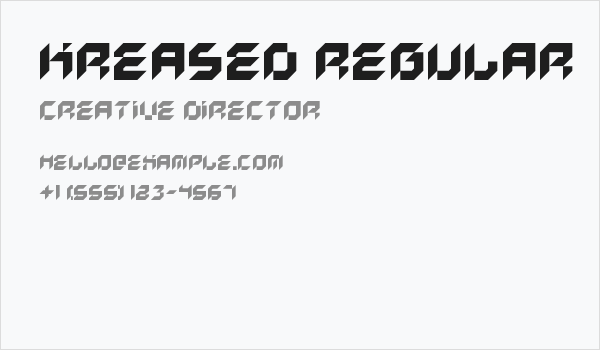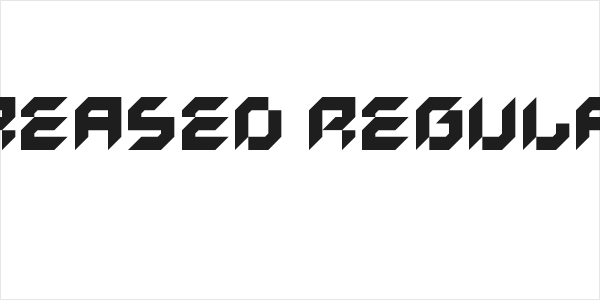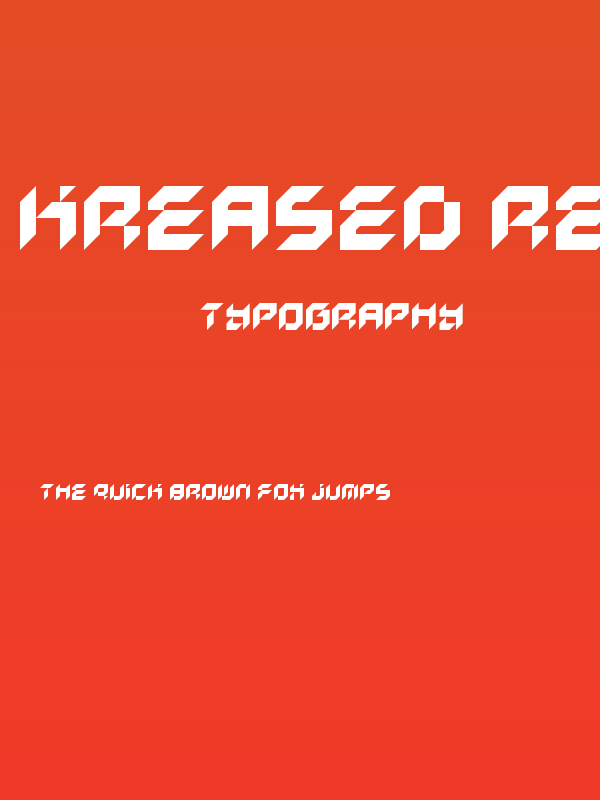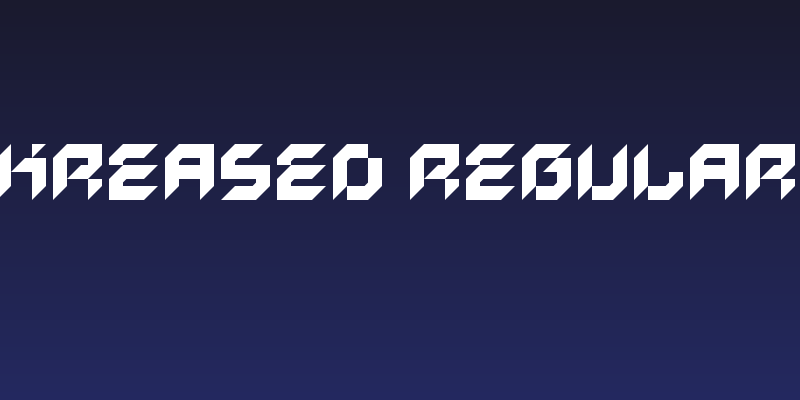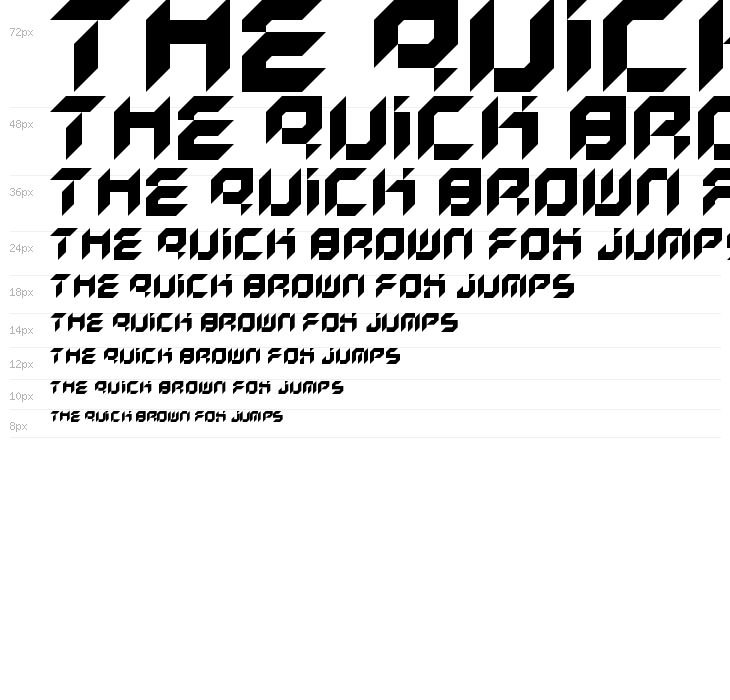
Kreased Regular Font
Kreased Regular Description
This font features a bold, geometric design with sharp angles and a futuristic aesthetic. The characters are constructed with thick, block-like strokes that create a sense of strength and modernity. The angular cuts and unique shapes give it a distinctive, edgy appearance, making it stand out in any design. The uppercase and lowercase letters maintain a consistent style, with the numbers and special characters following suit. This font is ideal for projects that require a bold statement and a modern touch.
| Proposed Projects | Ideal for branding, posters, video game titles, and futuristic-themed designs. |